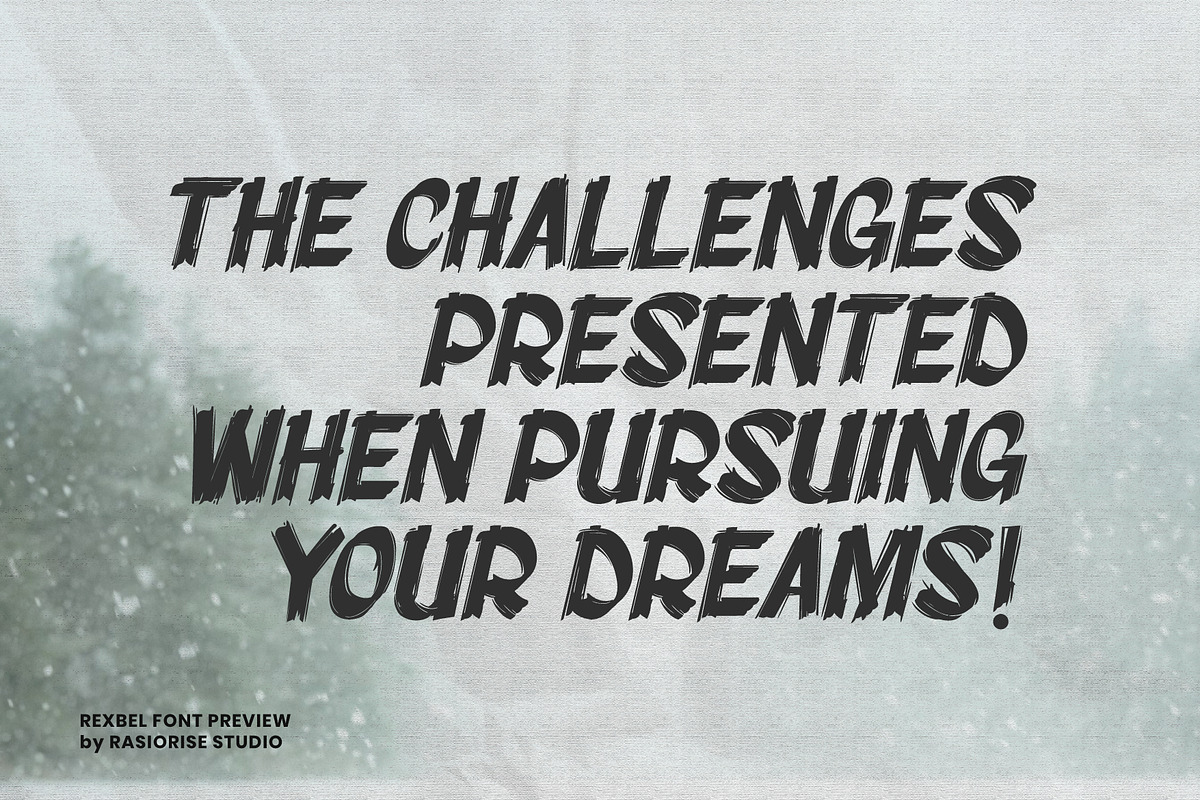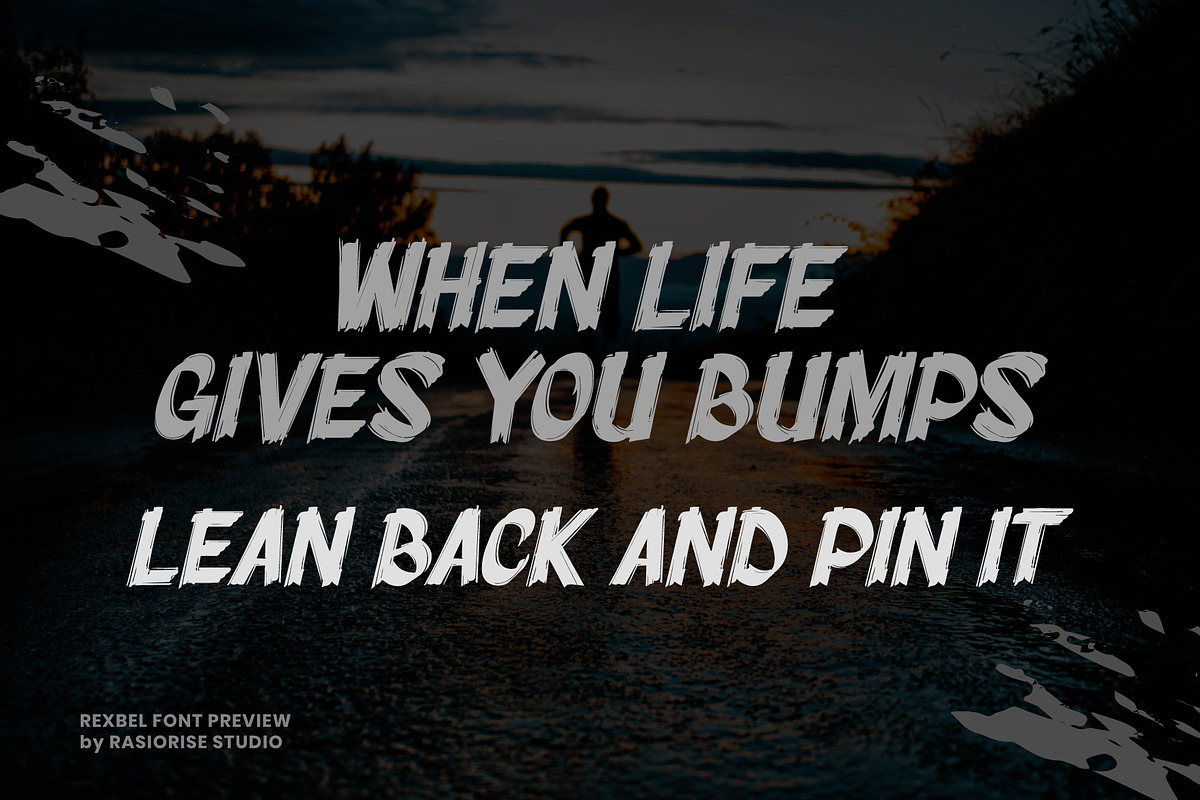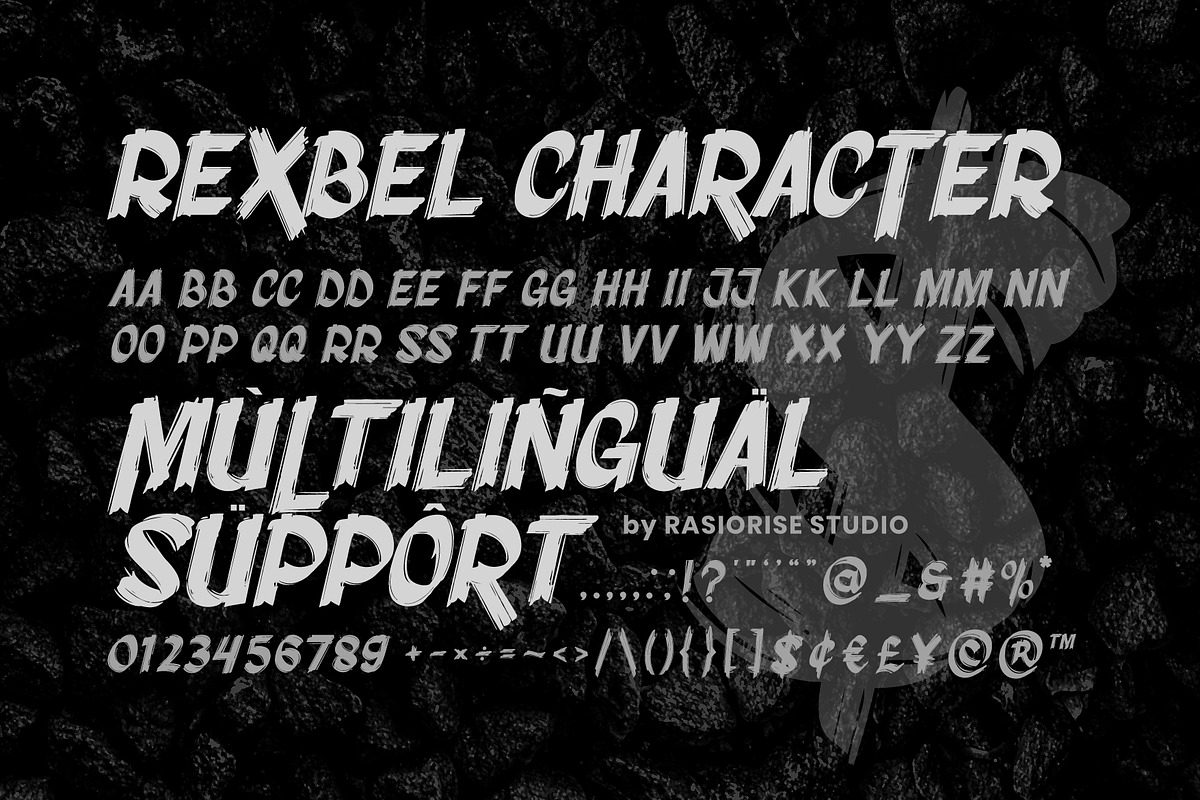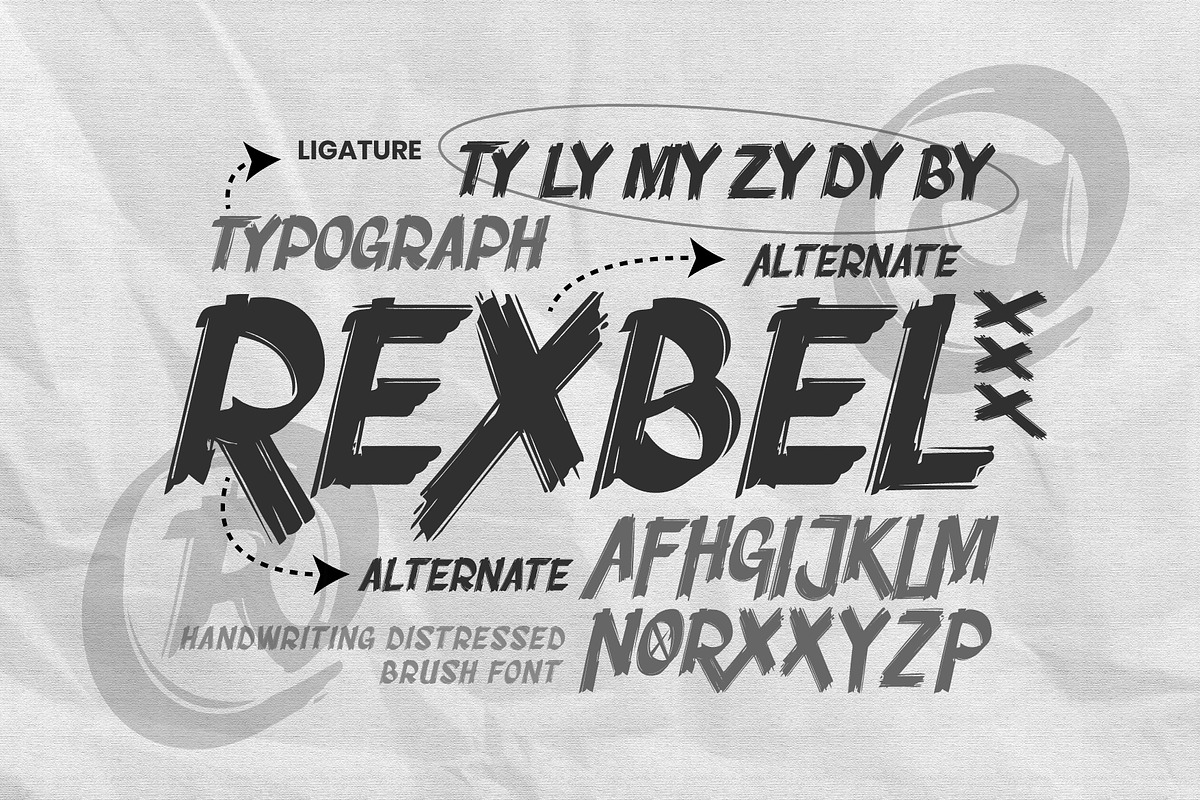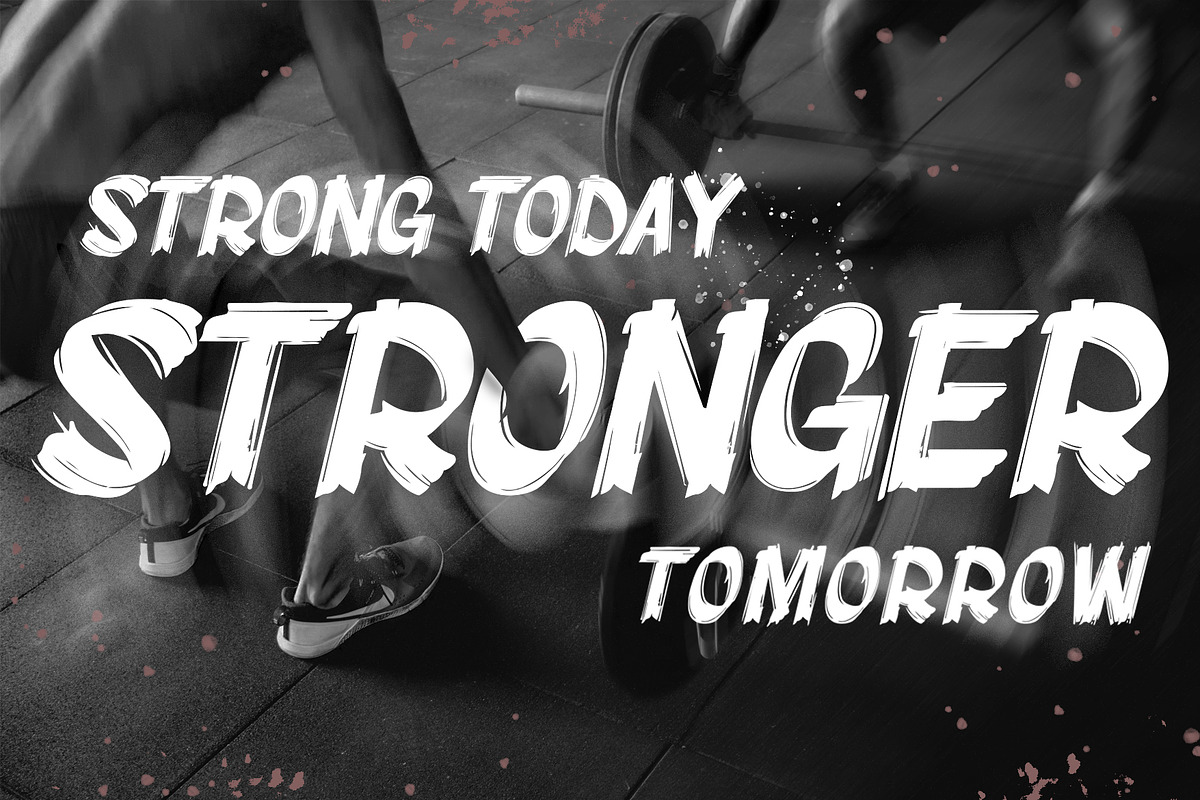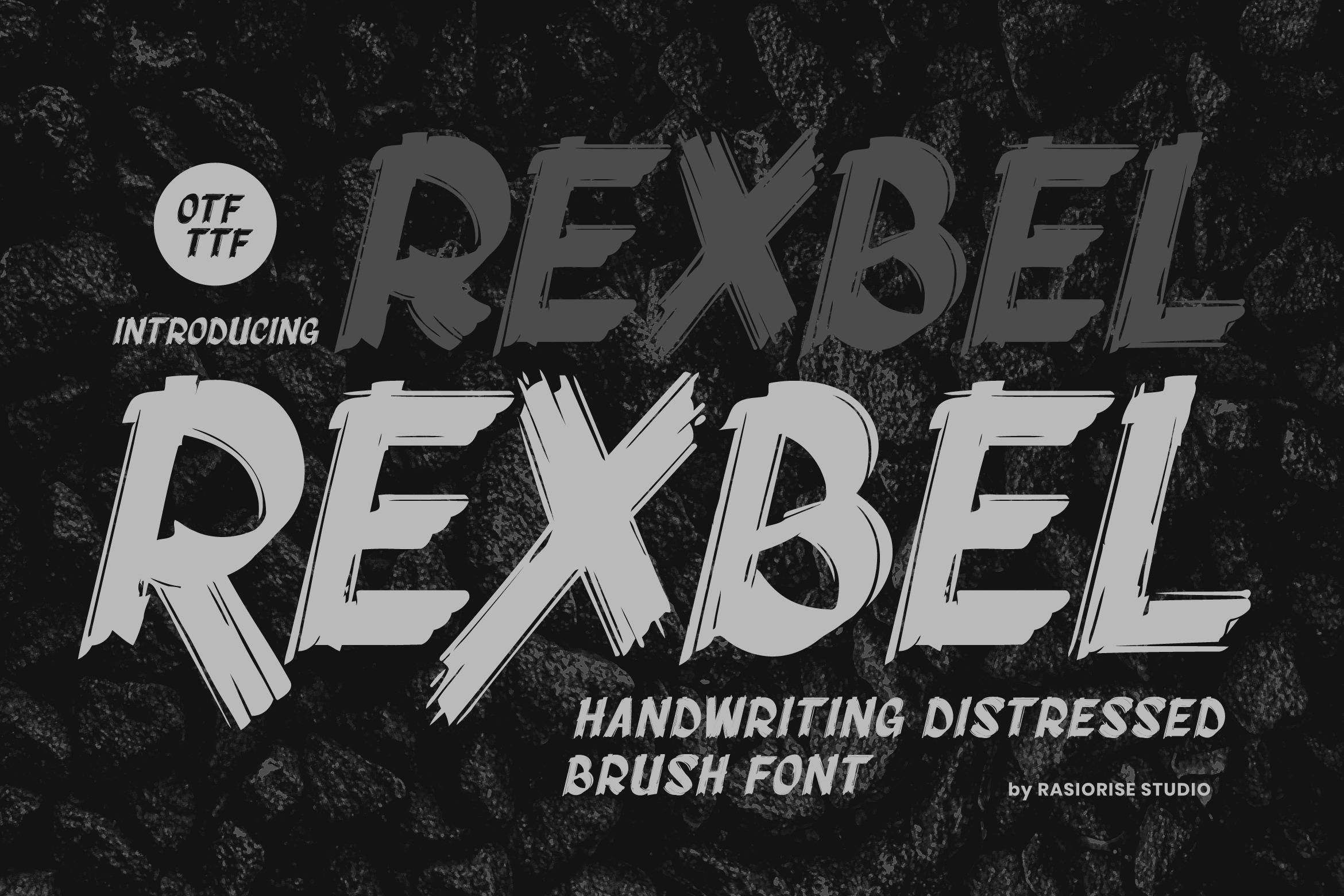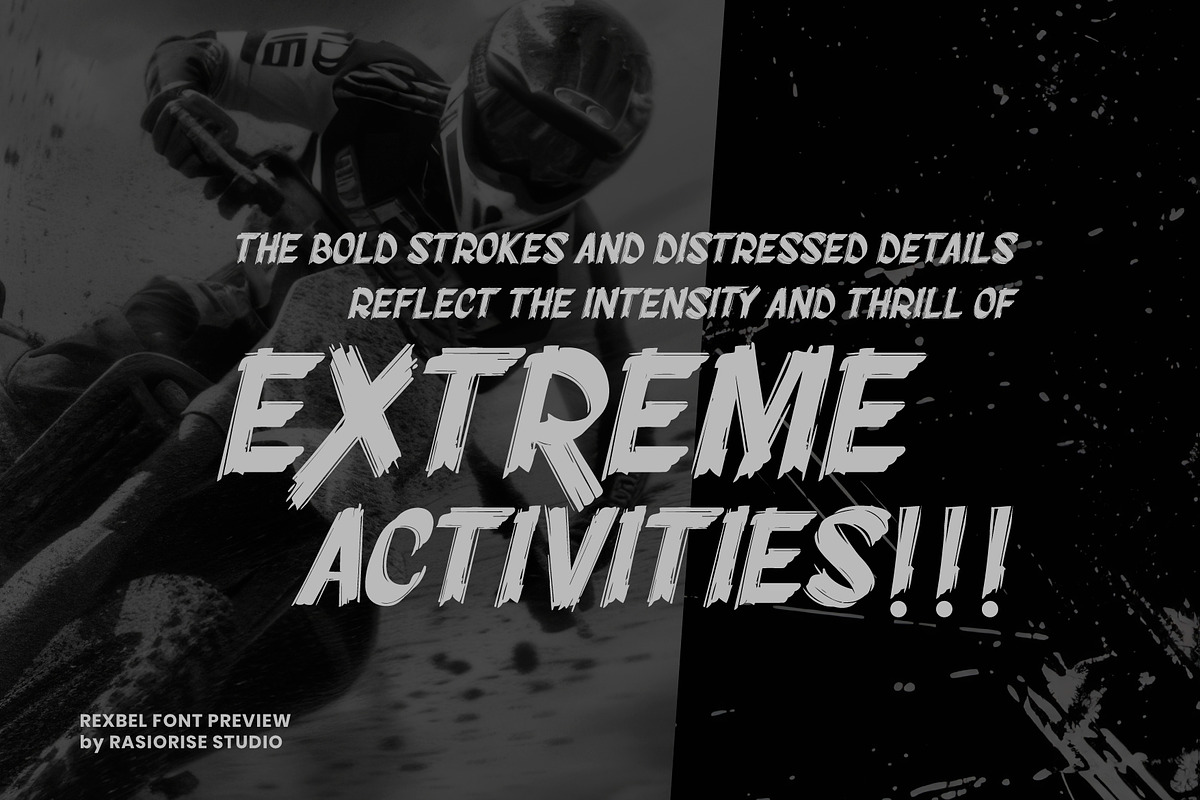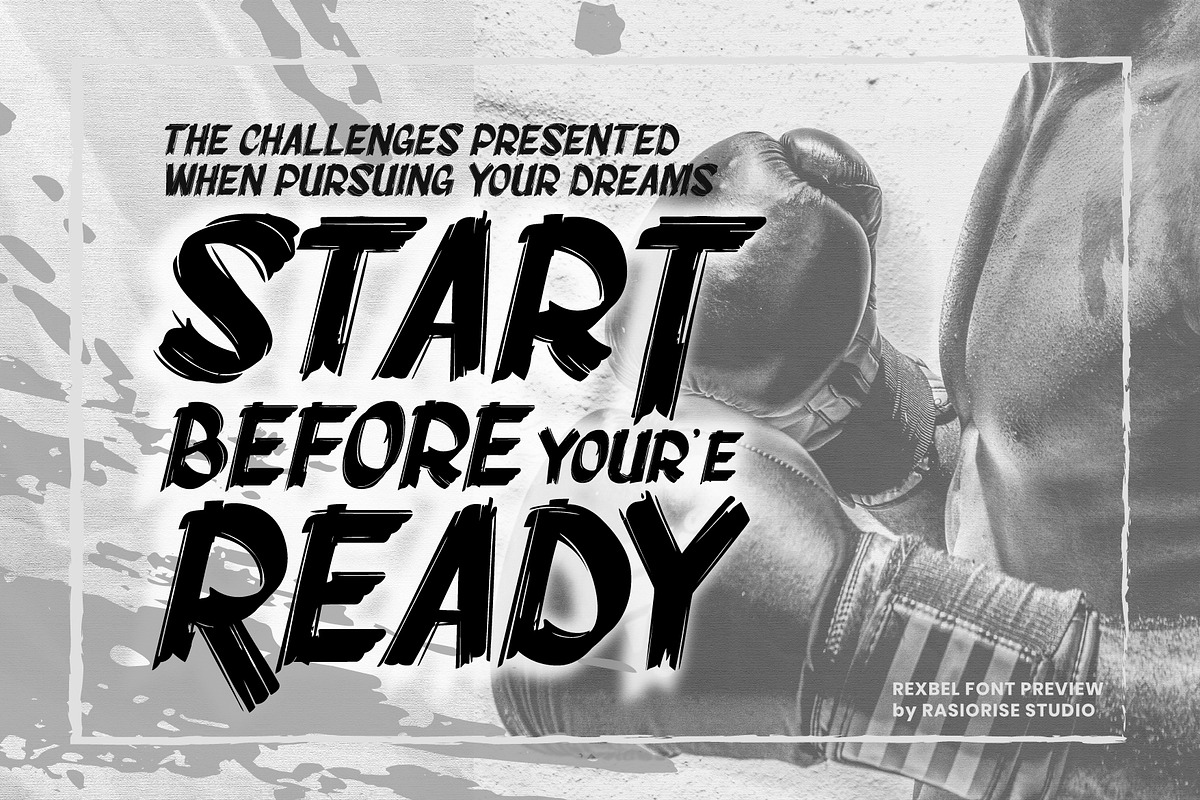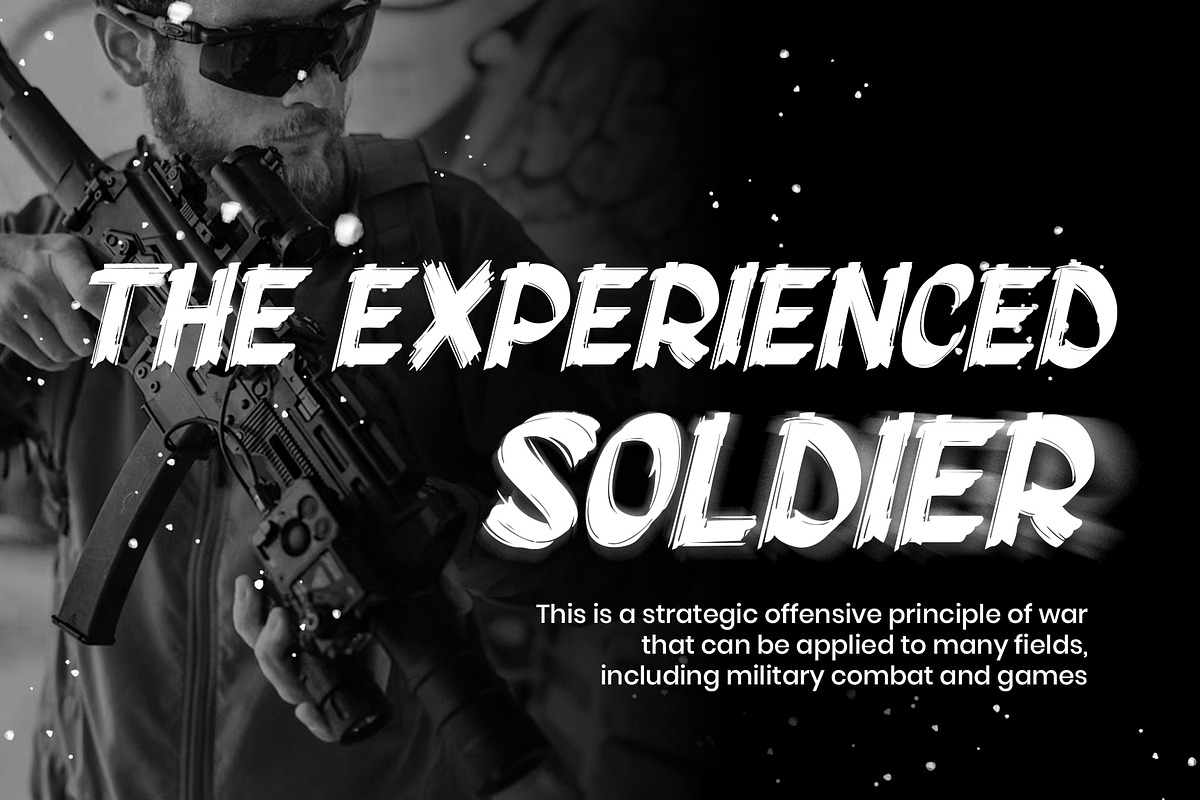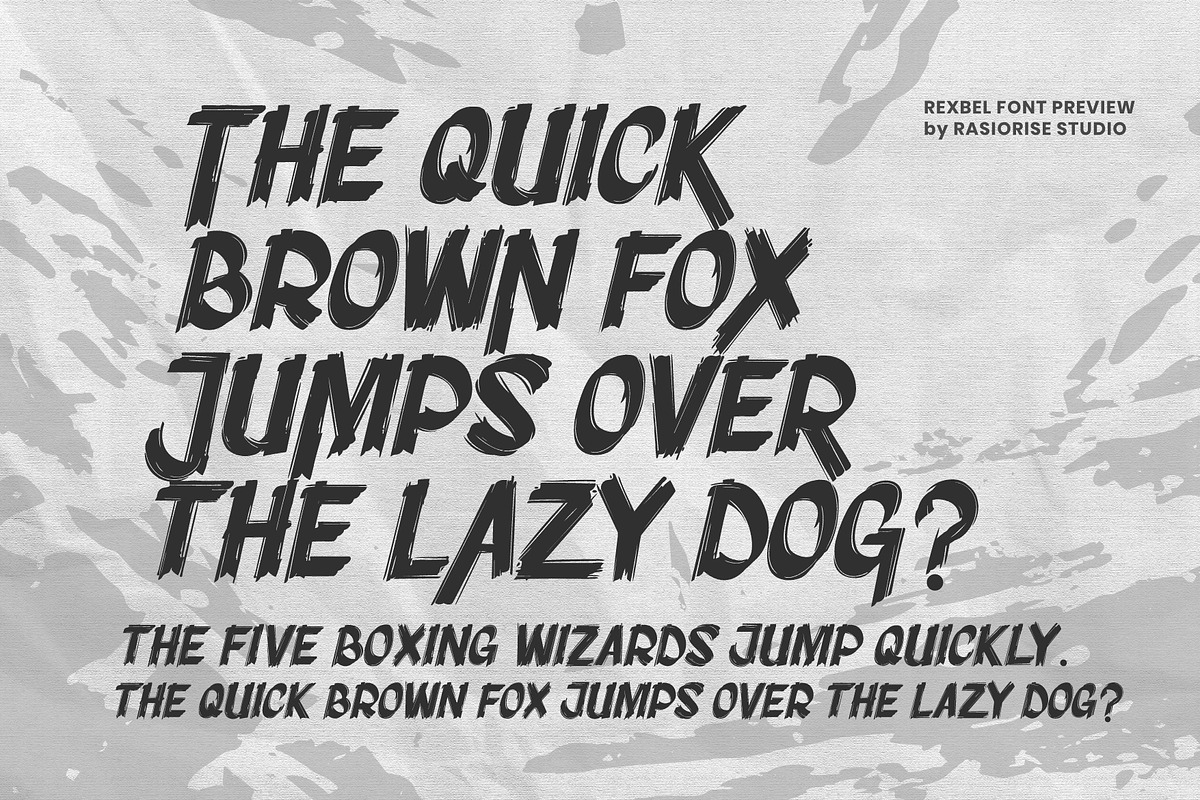
Rexbel a Rough Brush Font
Hello Everyone! Rexbel is Rough Brush Font a Bold Rough Brush and gritty grunge letter created from brush strokes, drawing inspiration from freestyle Brush Handwritting/Rough Brush. Infused with a rugged, textured finish, REXBEL Font is tailor-made for the world of extreme sports. It's bold strokes and distressed details reflect the intensity and thrill of extreme sports like skateboarding, BMX, and snowboarding. The letter's freestyle essence resonates with the fearless and adventurous nature of extreme sports enthusiasts, making it an impactful choice for designs aimed at capturing the essence of adrenaline and action.
This font is reguler character style, included as the Uppercase and Lowercase regular character, numeral and multilingual support. Very suitable for Logotype, Signin Brush Style, Book Cover, GYM, Extreme Sport, Comic Text, Poster, Merchandise, Packaging Label, Badge/Emblem Logo and much more.